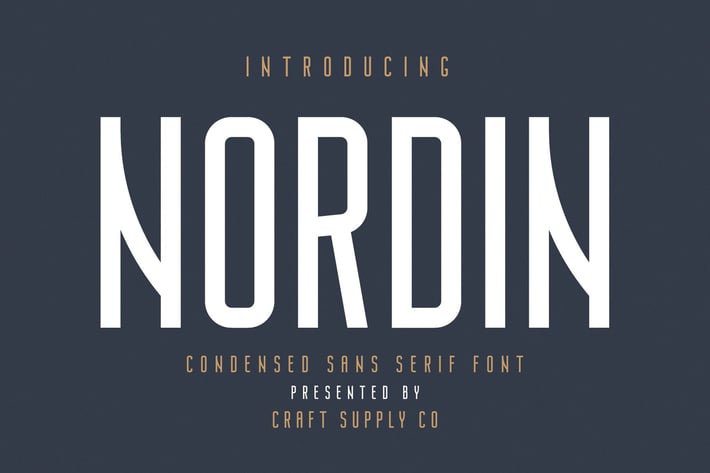
Nordin - Condensed Sans Serif Font
Introducing New Font : Nordin - Condensed Sans Serif
Nordin - Condensed Sans Serif is an Elegant Condensed sans serif with solid font files. it is based on the compact solid font, by combining a variety of styles. Suitable for Logo, greeting cards, quotes, posters, branding, name card, stationary, design title, blog header, art quote, typography
Nordin - Condensed Sans Serif also suitable for art, modern envelope lettering or book design, happening style like handdrawn design or watercolor design theme, craft design, any DIY project, book title, wedding font, pop vintage design, or any purpose to make our art/design project look pretty and trendy.
1. All Caps Font
2. Standard Ligatures
4. Accents (Multilingual characters)